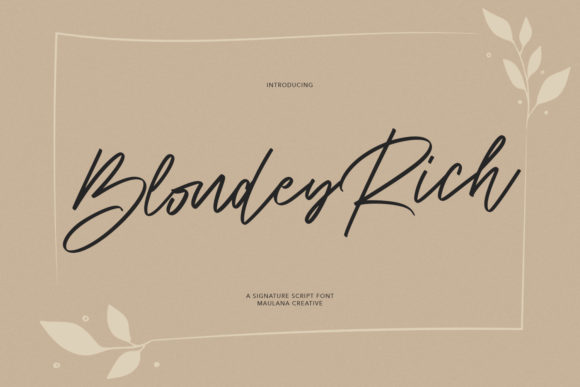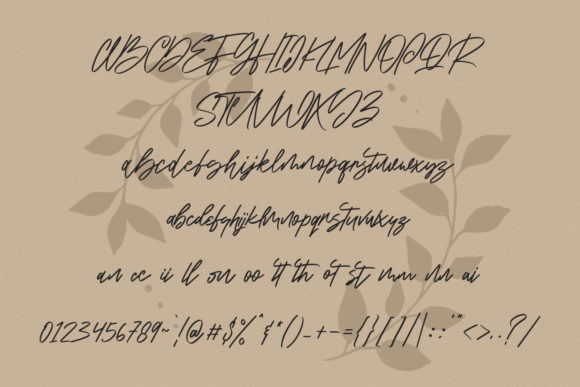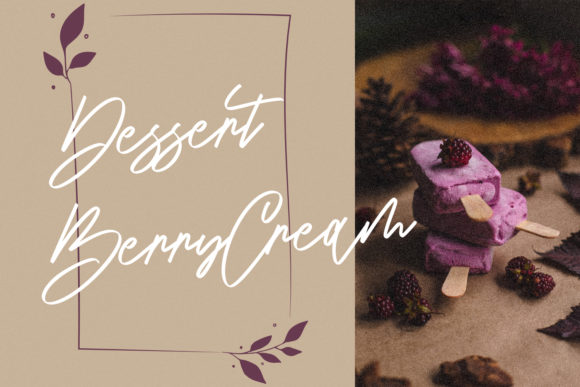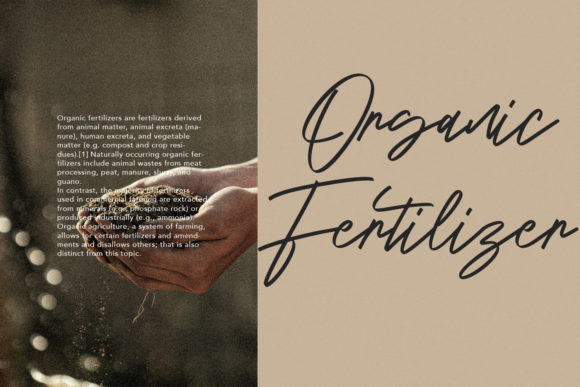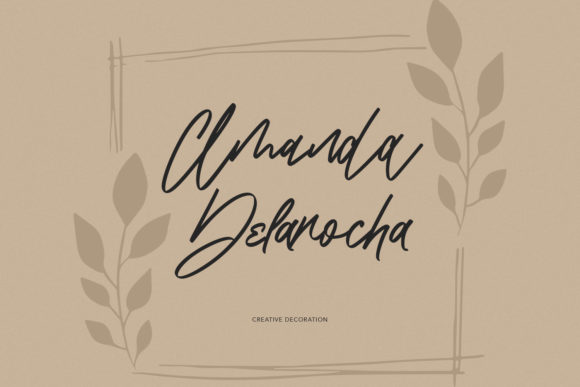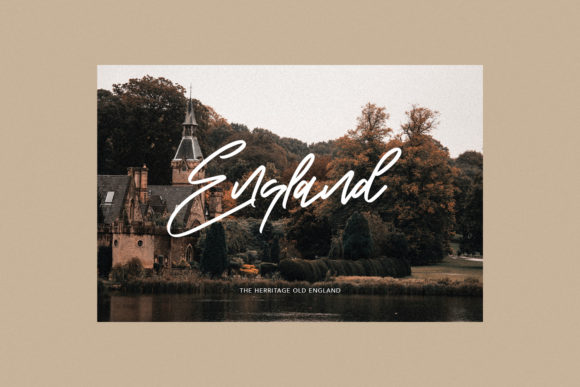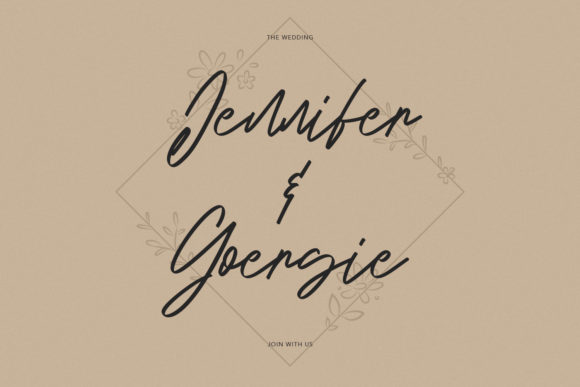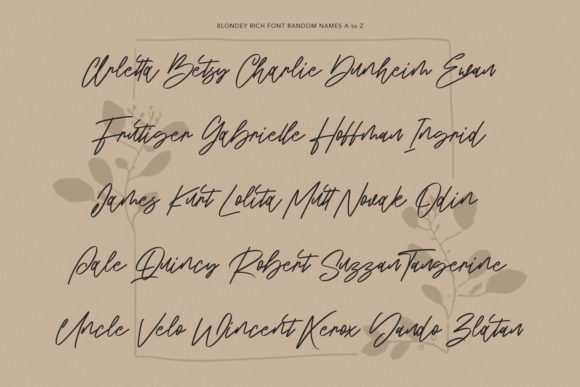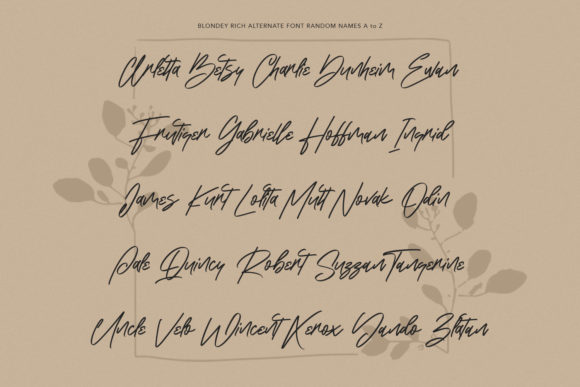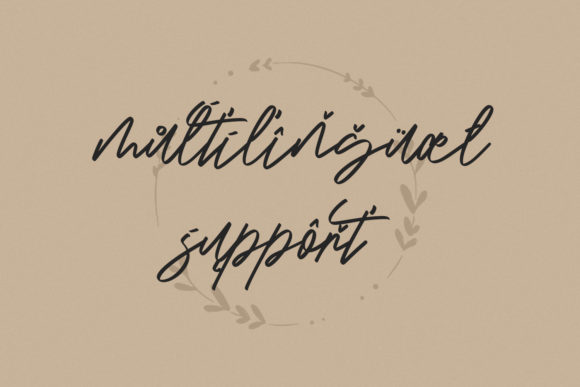
Blondey Rich Font
About Blondey Rich Font
Blondey Rich is a relaxed and distinct script font that adds a touch of uniqueness and personality to your designs. With its casual yet stylish letterforms, this font is perfect for creating eye-catching logos, branding materials, and quotes.
The font’s relaxed and laid-back style gives your designs a sense of ease and approachability. Each letter has been carefully crafted with a unique and beautiful touch, adding character and charm to your typography. Whether you’re designing a logo, creating branding materials, or crafting inspiring quotes, Blondey Rich will make your design come alive with its distinct and memorable appearance.
Blondey Rich is versatile and can be used in a variety of design projects. Its informal and friendly nature makes it suitable for a range of industries and themes. Whether you’re designing for a fashion brand, a food business, or a creative agency, this font will add a touch of personality and catch the eye of your audience.
When using Blondey Rich, consider the overall balance and legibility of your design. Experiment with different lettering styles and combinations to create visually appealing compositions. Play with sizes, spacing, and color to enhance the impact of your typography and make it truly eye-catching.
In summary, Blondey Rich is a relaxed and distinct script font that brings a unique and beautiful touch to your designs. Its versatility makes it suitable for logos, branding, and quotes across various industries. With Blondey Rich, your designs will come alive with style and personality.